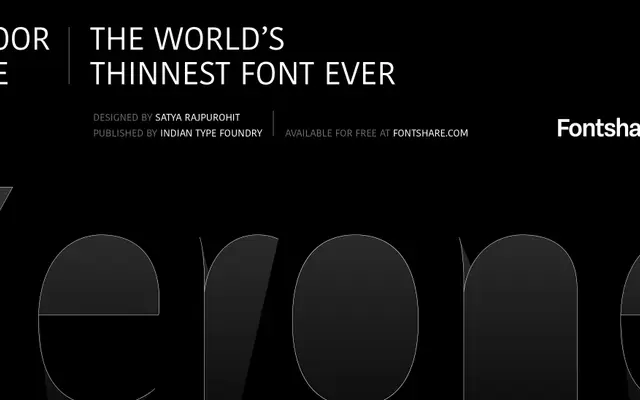
Kohinoor Zerone
A free two-style Latin sans from Indian Type Foundry, sitting within the broader multilingual Kohinoor family.
Kohinoor Zerone is offered as a free download in two styles, Zero and One, forming a compact companion to ITF's expansive Kohinoor family which spans Devanagari, Tamil, Arabic and numerous other scripts. The family is designed with screen and text use in mind, consistent with the broader Kohinoor range. Its availability as a free release makes it accessible as an entry point to ITF's type ecosystem.
Part of the wider Kohinoor family from ITF, Zerone is a Latin sans-serif in the humanist tradition, offered in two styles (Zero and One) as a free release.